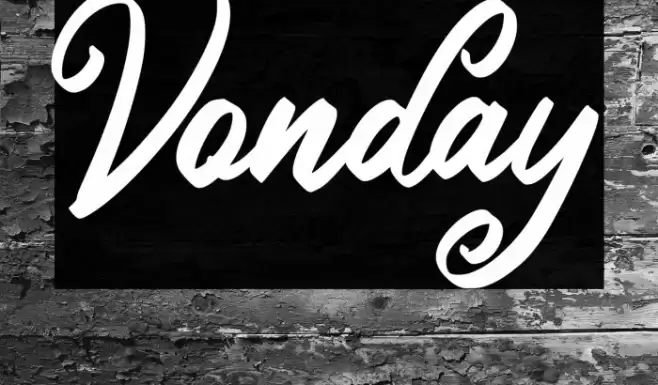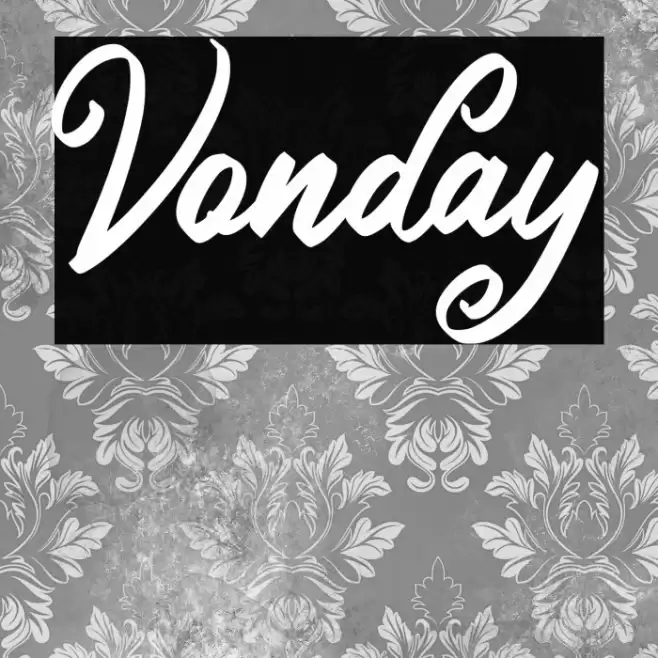
Vonday Font
Vonday Description
This font features a bold, flowing script style with elegant, swirling strokes that give it a dynamic and artistic appearance. The uppercase letters are characterized by their intricate loops and flourishes, while the lowercase letters maintain a consistent, smooth flow. The overall design is reminiscent of classic calligraphy, with a modern twist that adds a touch of sophistication. The font's bold weight and high contrast between thick and thin strokes make it stand out, ideal for creating eye-catching designs. Its decorative nature makes it suitable for projects that require a touch of elegance and flair.
A bold, flowing script font with elegant, swirling strokes and high contrast from Regular fonts.
- Font: Vonday
- Proposed Projects: Ideal for wedding invitations, branding, logo design, and decorative headlines.
- Use Case: Logos, Headlines, Invitations